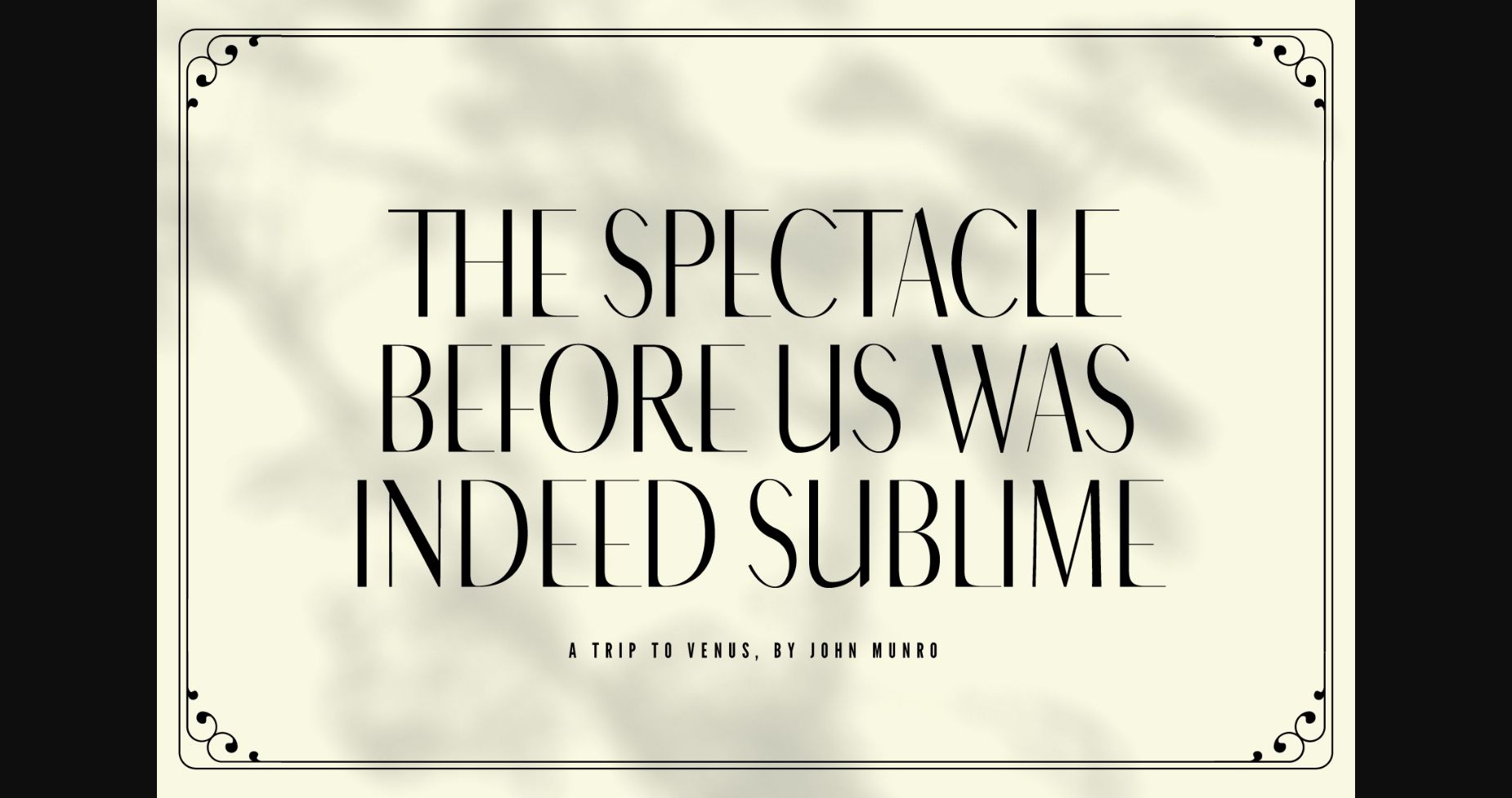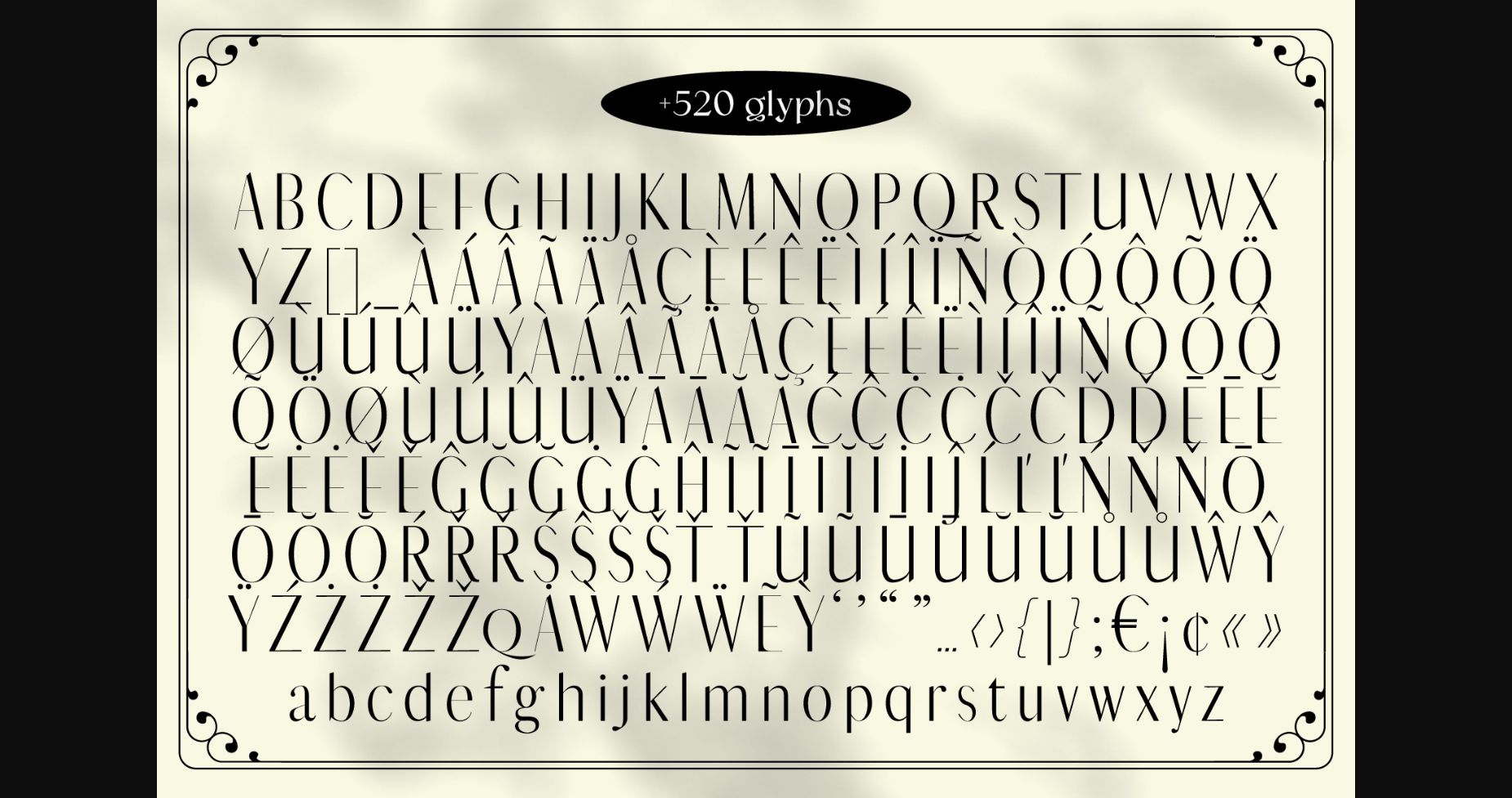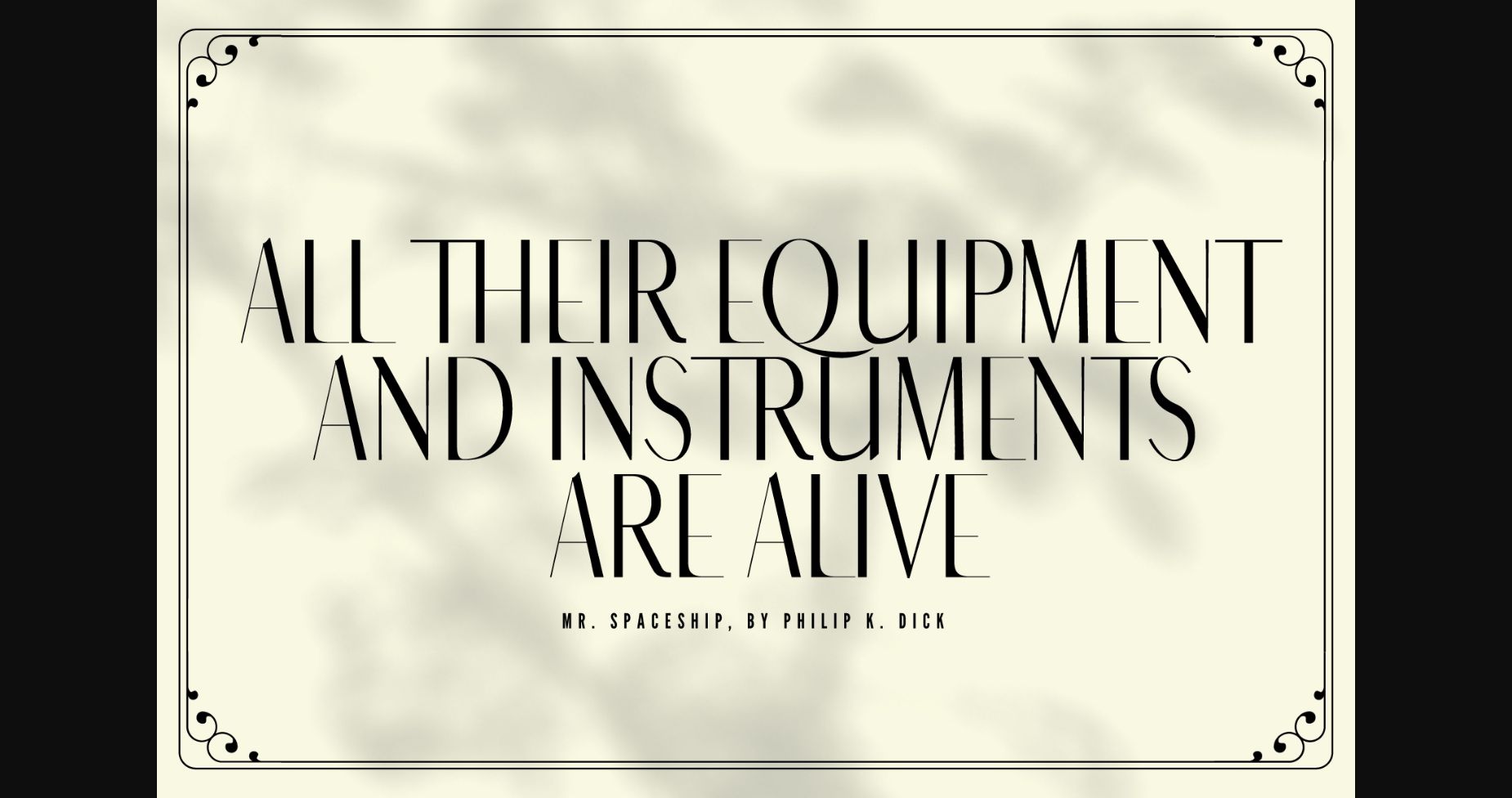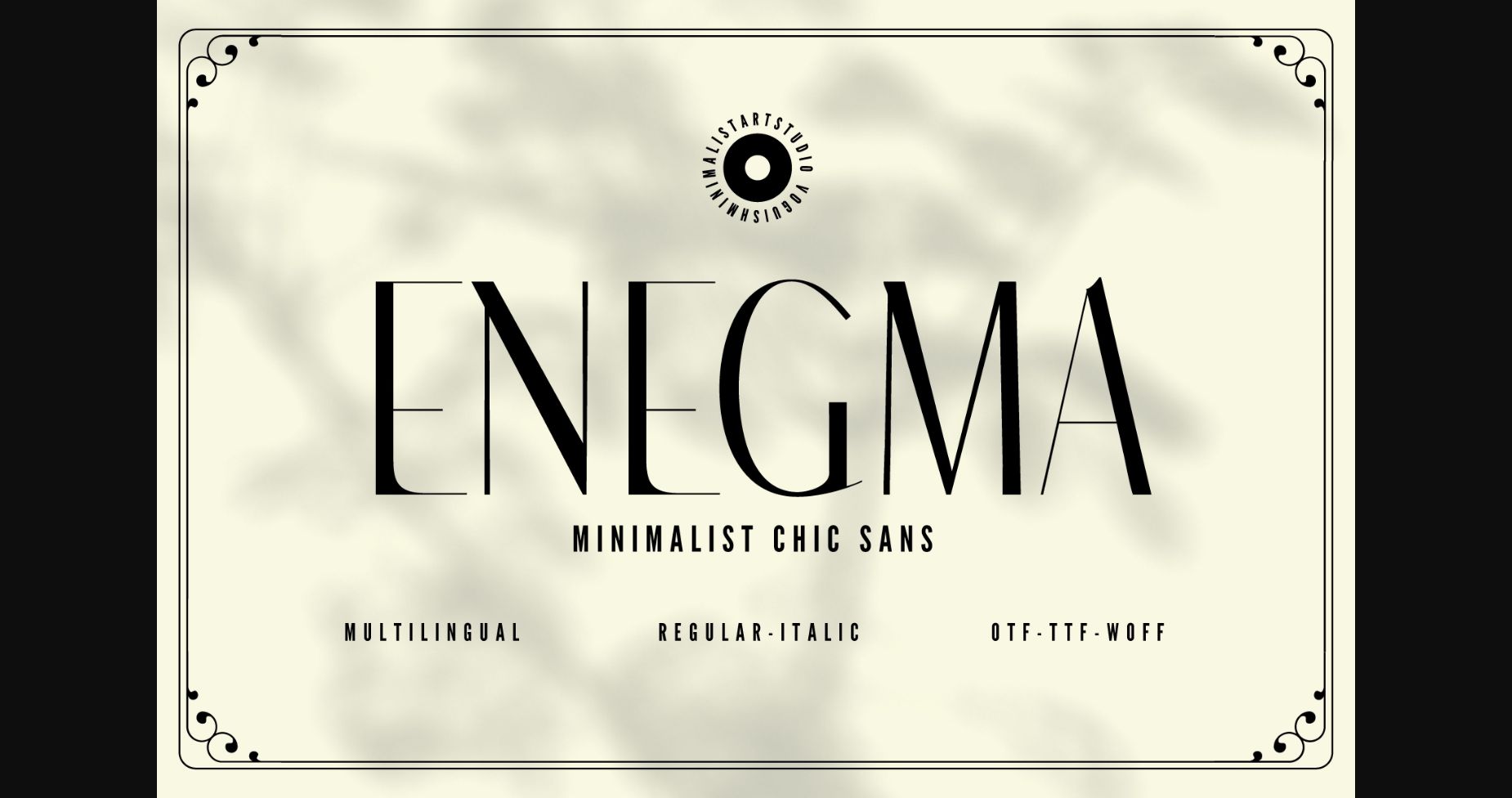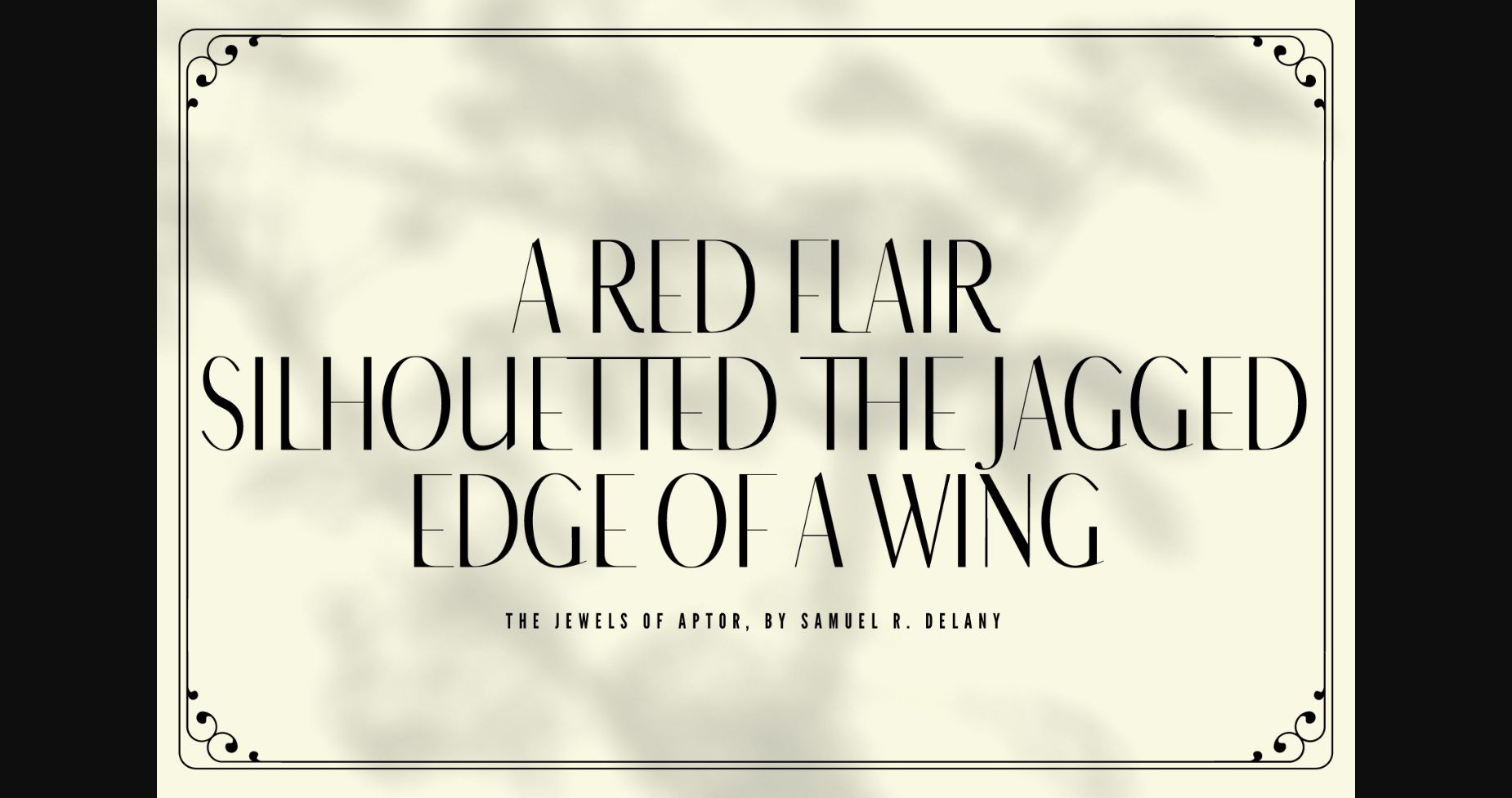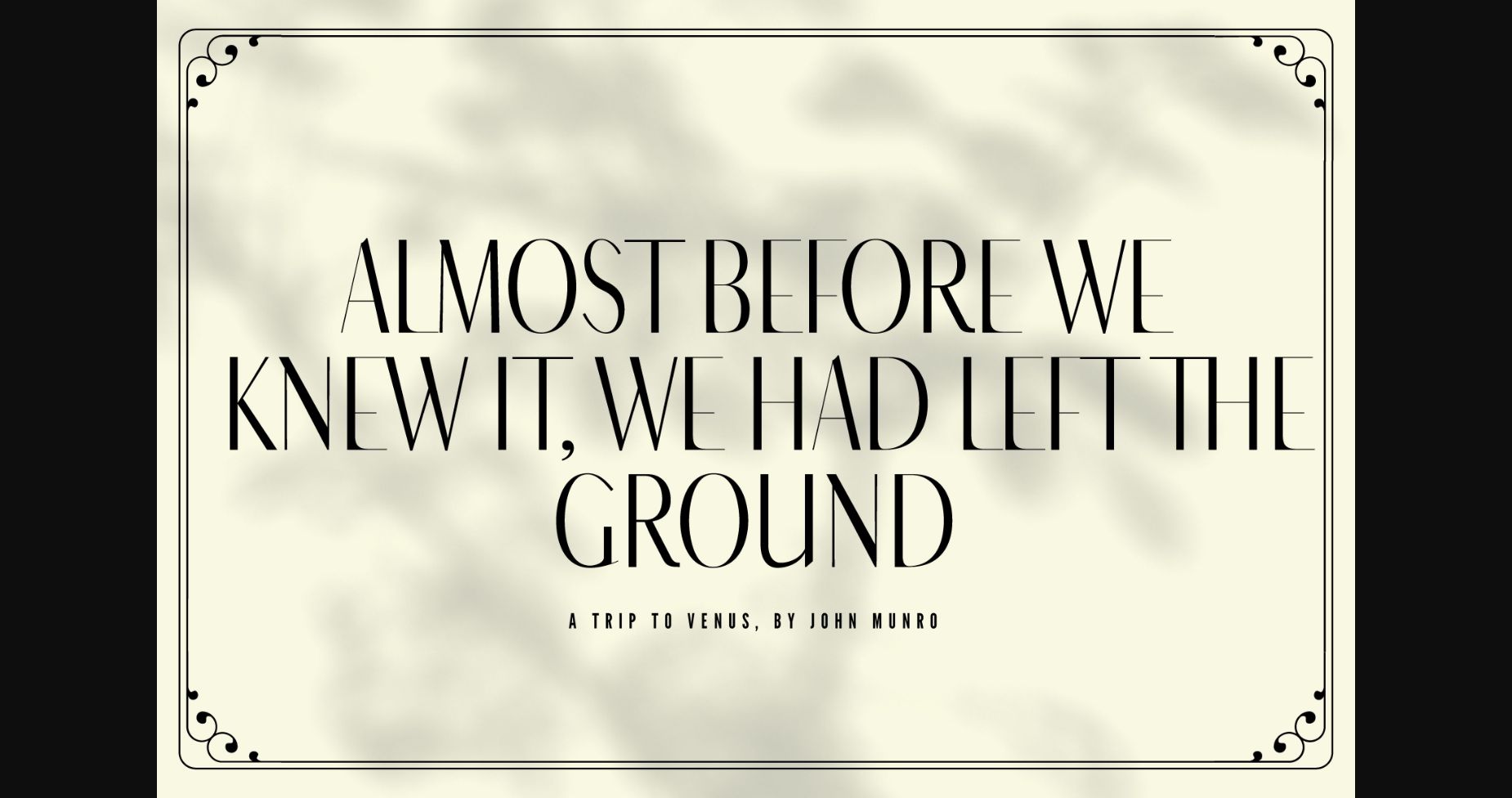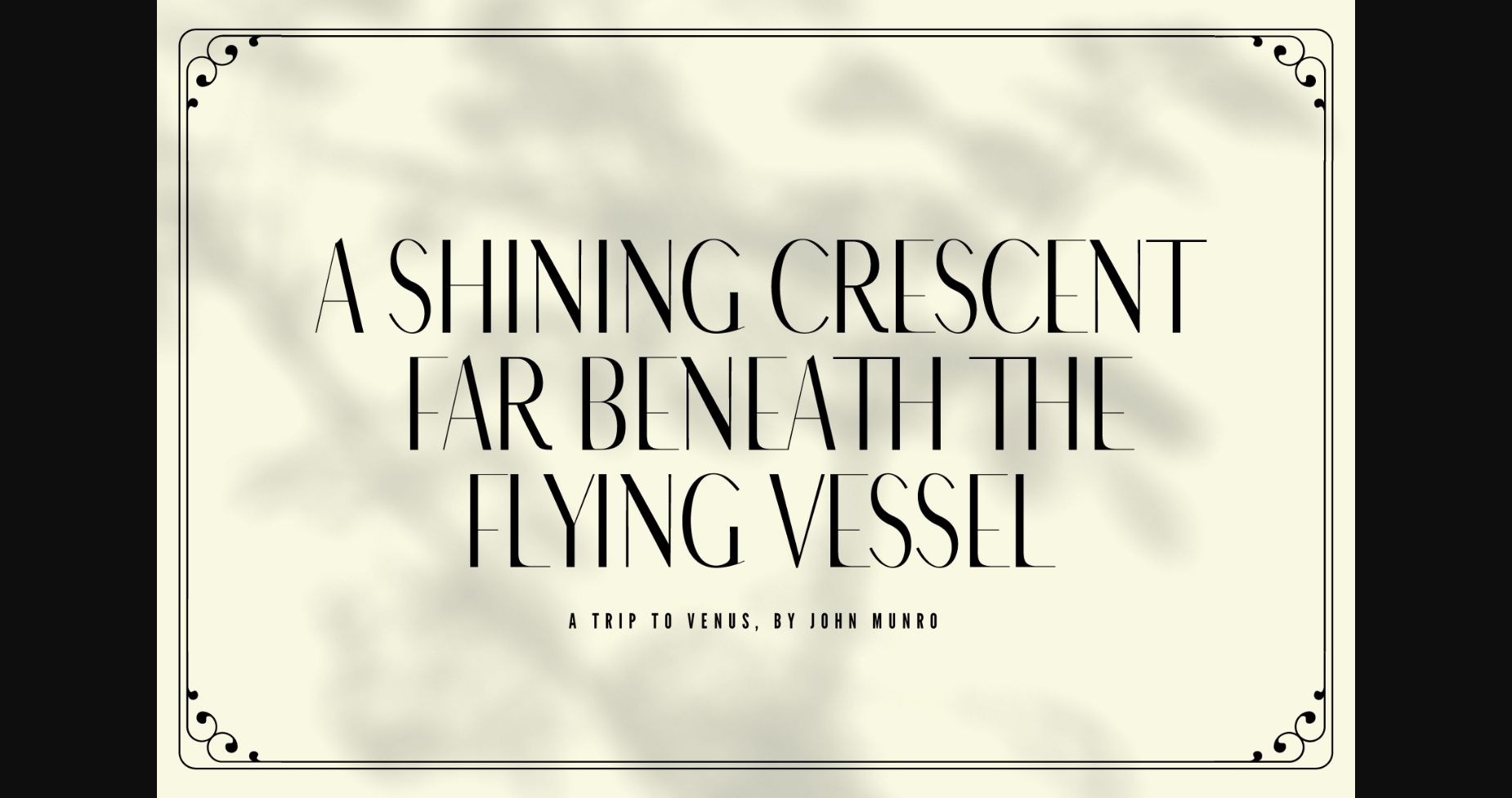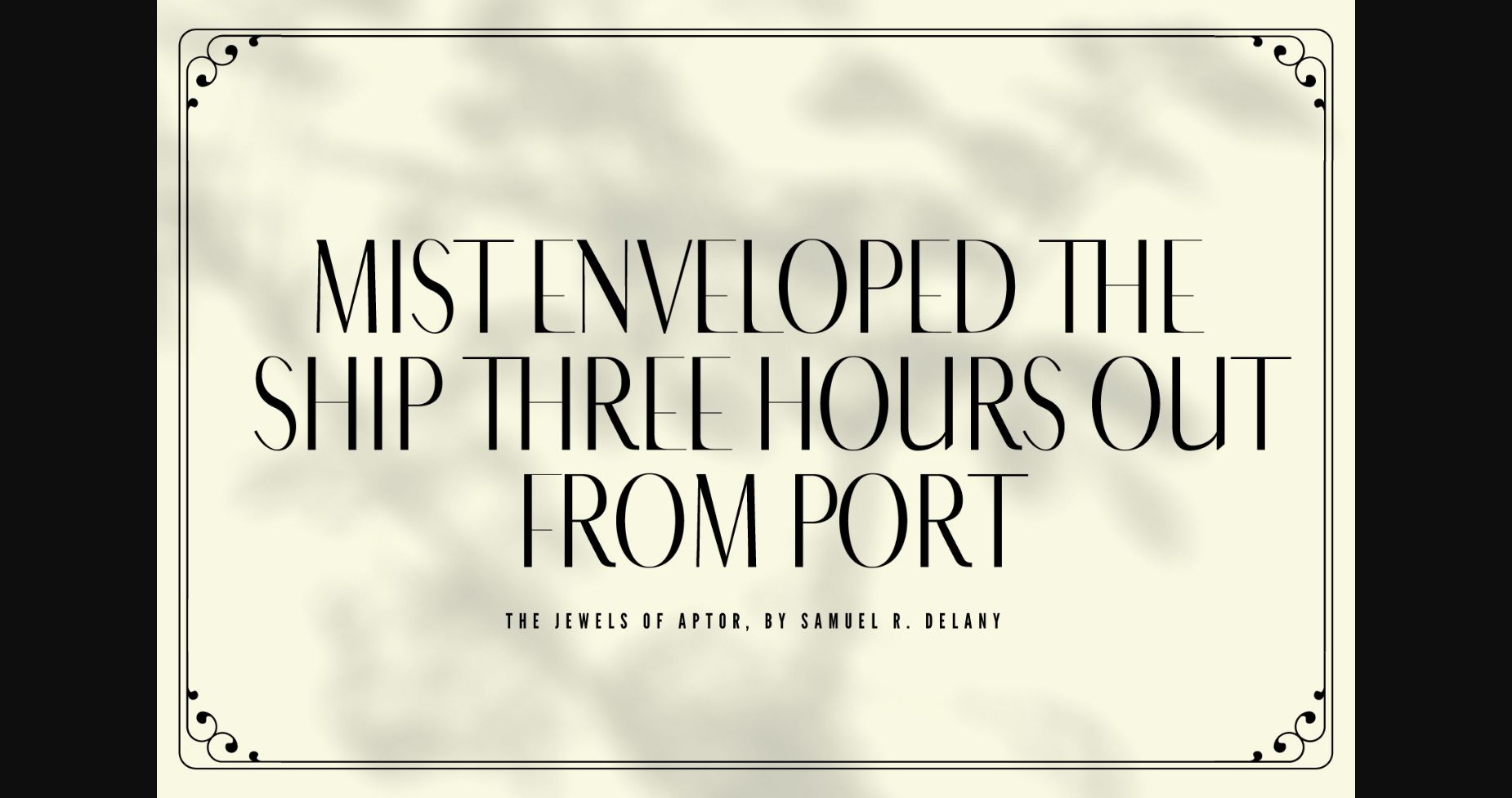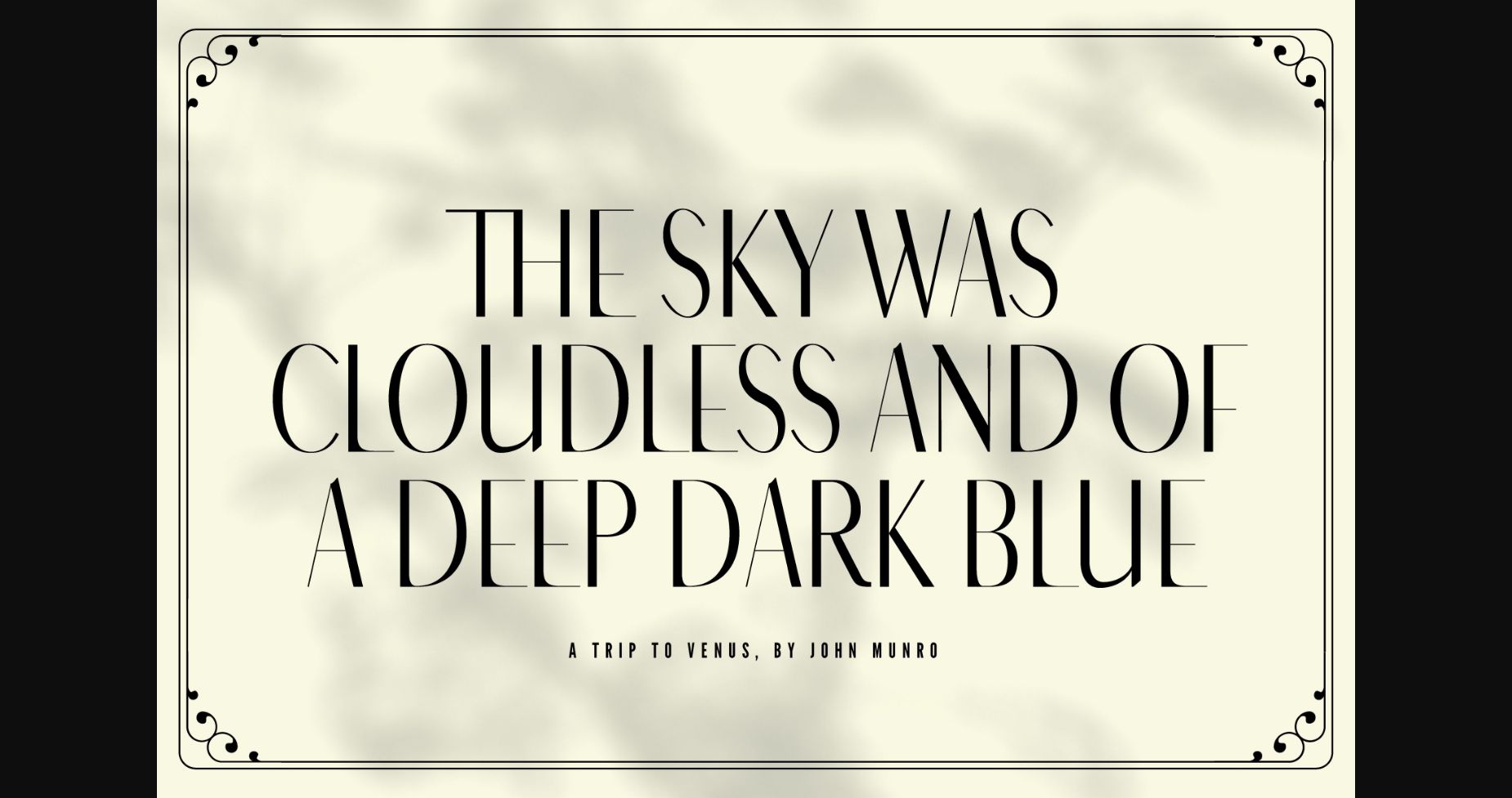
Enegma Font
About Enegma Font
Introducing Enegma, a delicate, chic, and minimalist sans serif font designed to bring a touch of sophistication to your typography. With over 520 glyphs, Enegma offers versatility and creativity to your designs.
The clean lines and modern simplicity of Enegma make it perfect for a wide range of applications. Whether you’re designing a logo, creating a website, or producing a brochure, Enegma will add a touch of elegance and refinement to your work.
Enegma’s simple, yet striking design allows for easy readability at any size. The letters are evenly spaced and perfectly proportioned, creating a harmonious flow of text. The font’s slight curvature and subtle details add a softness to the overall look, while still maintaining its chic and modern aesthetic.
Enegma includes a range of special characters and symbols, allowing for increased customization and creativity. Use the various ligatures, alternates, and stylistic sets to create unique and eye-catching designs.
Enegma is perfect for those looking to add a touch of sophistication to their typography. Its minimalist design and delicate details make it an ideal choice for branding, packaging, and editorial design. So whether you’re a graphic designer or a creative professional, Enegma is the perfect font to elevate your designs to the next level.